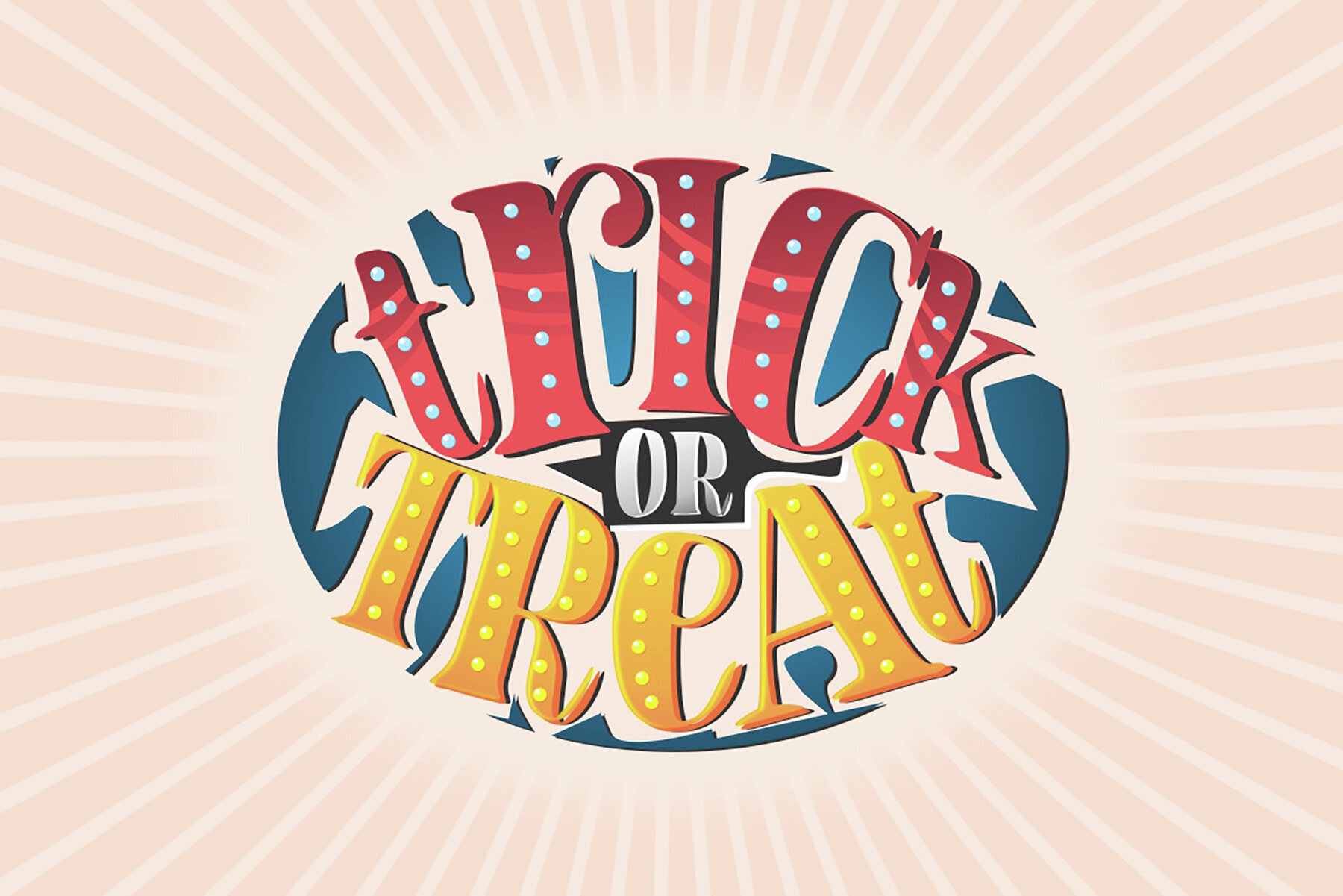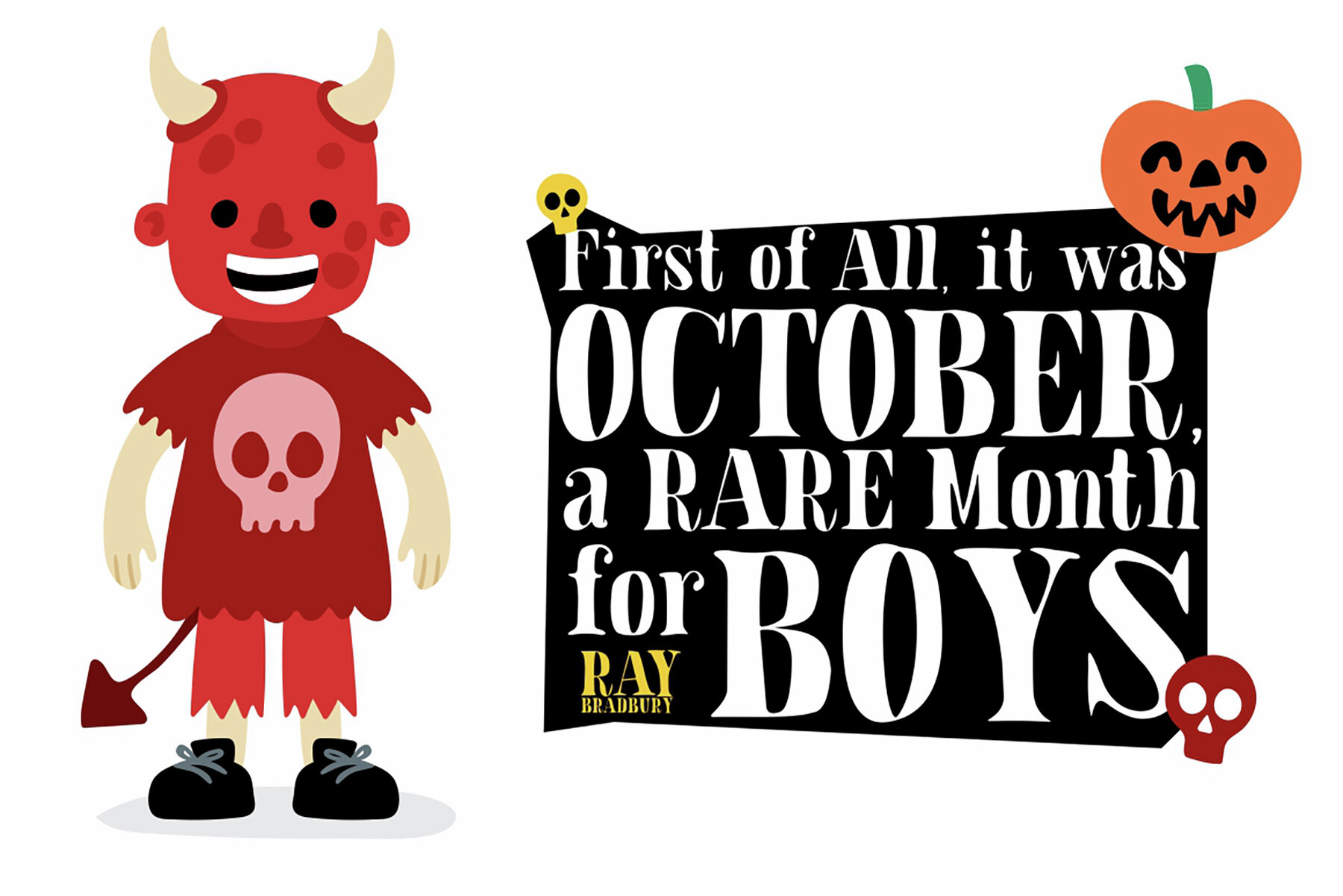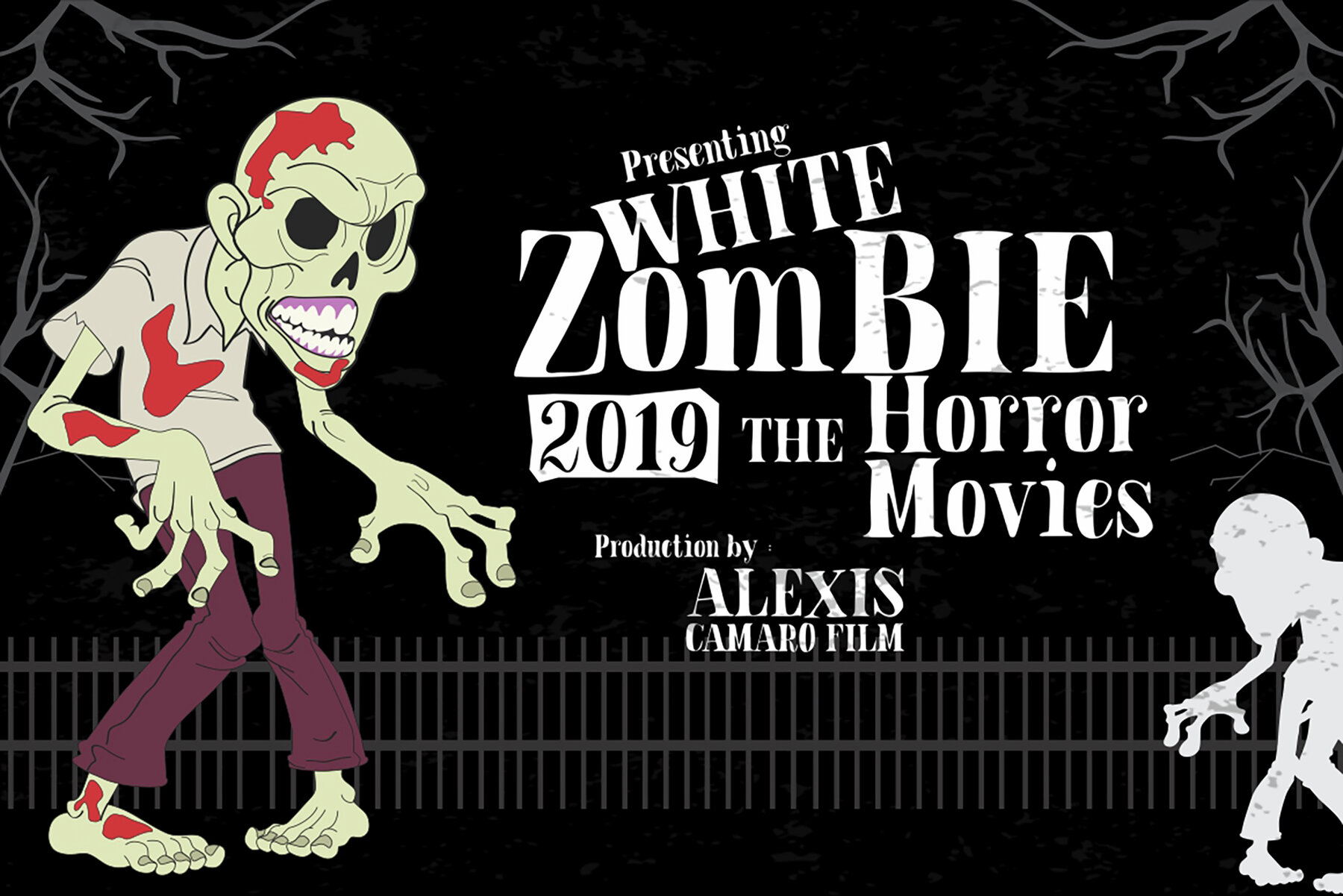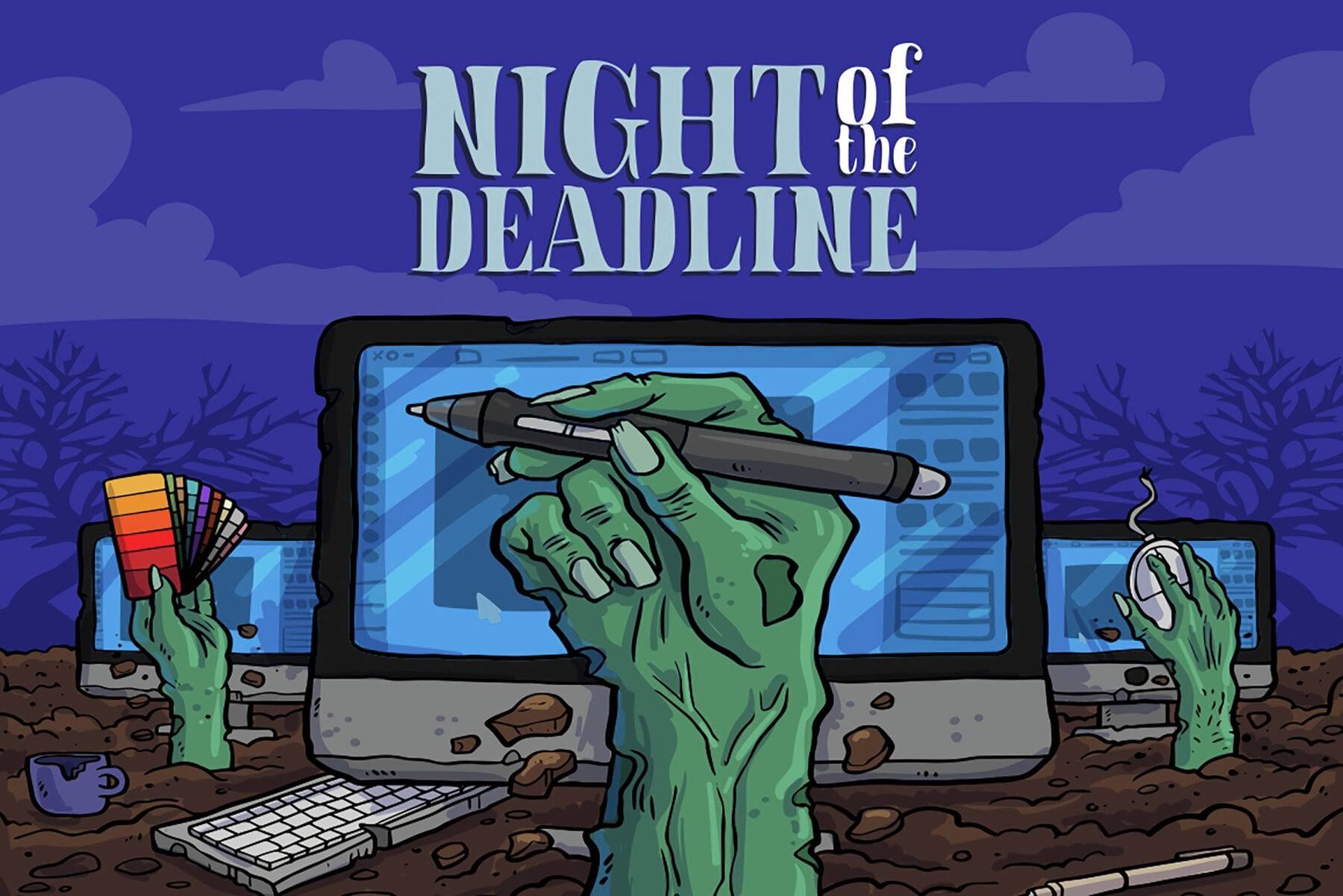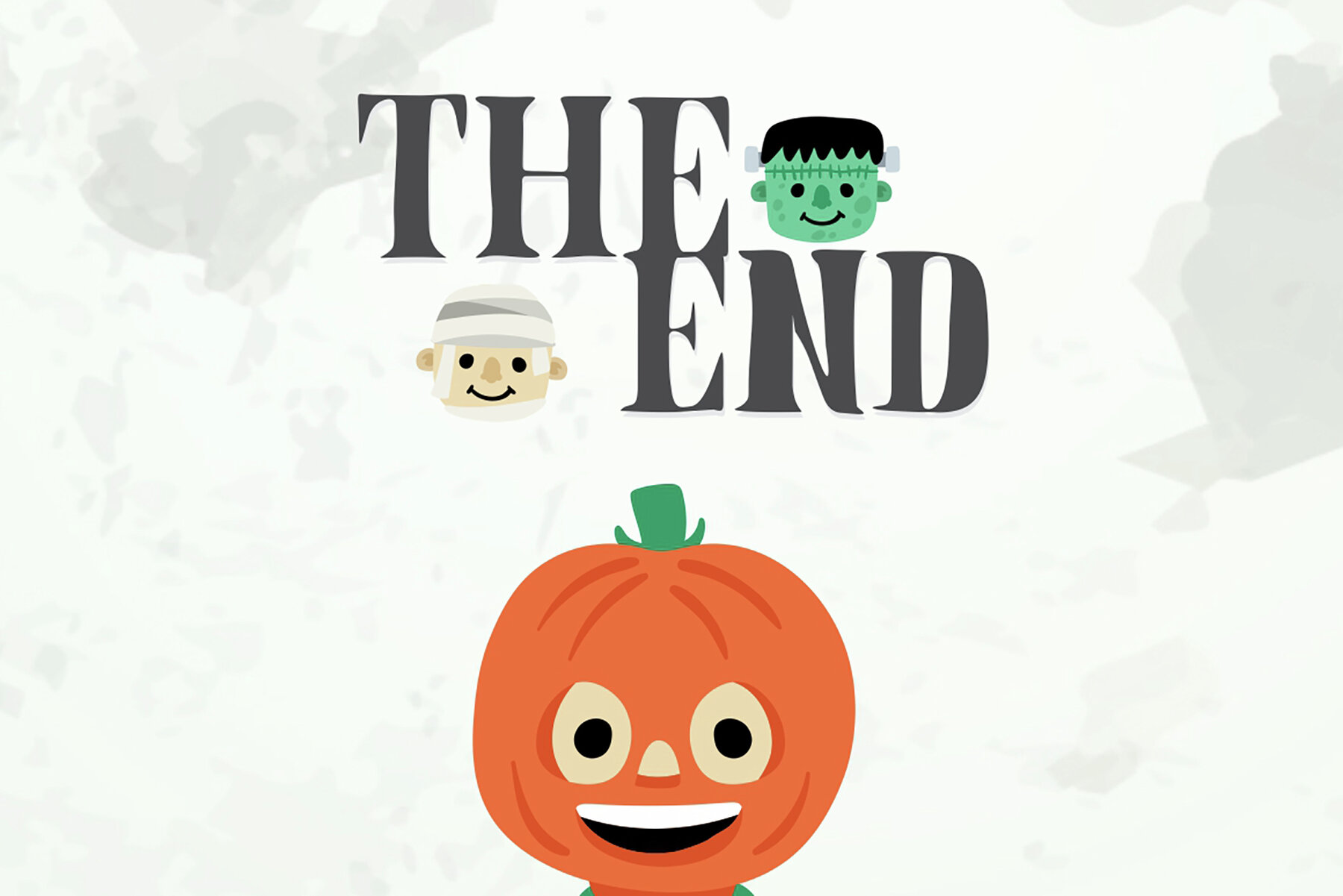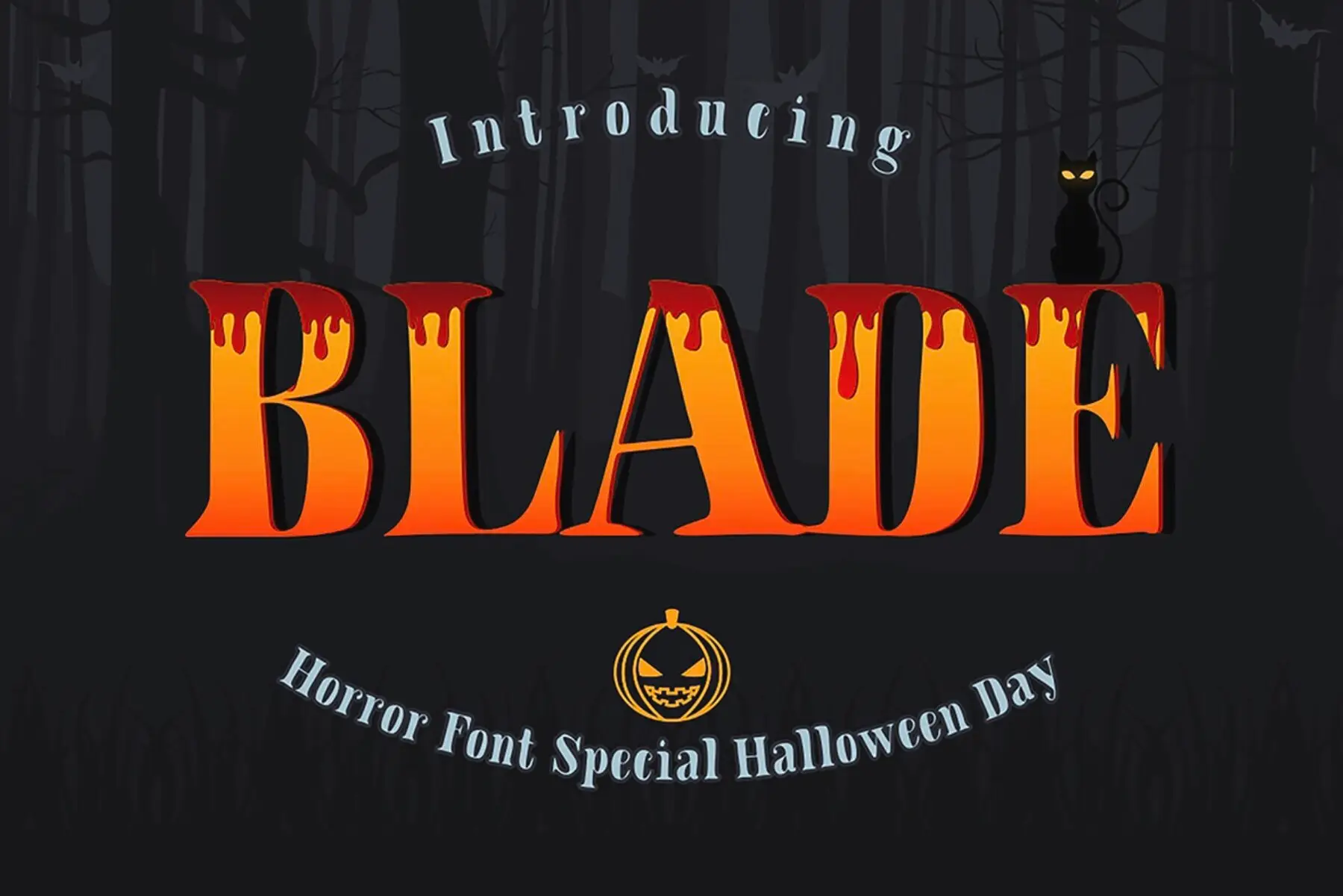
Blade Font
Blade Hallowen
Embrace the eerie charm of Halloween with the Blade Font. This distinctive serif font, reminiscent of natural handwriting, carries a hint of horror, adding a unique touch to your seasonal designs. Whether you're crafting logos, branding projects, or homeware designs, Blade Font brings the perfect mix of assertiveness and spookiness to your creations. Designed for effortless use, Blade Font comes with a comprehensive set of features, including uppercase and lowercase letters, punctuation, numbers, and multilingual support. Alongside, you'll find ligatures and stylistic alternates. It's the ideal tool for any design software supporting OpenType, such as Corel Draw, Photoshop, Illustrator, or InDesign.Blade Font
Perfect for Various Designs